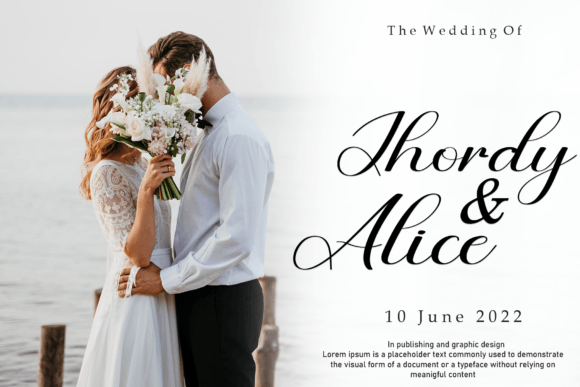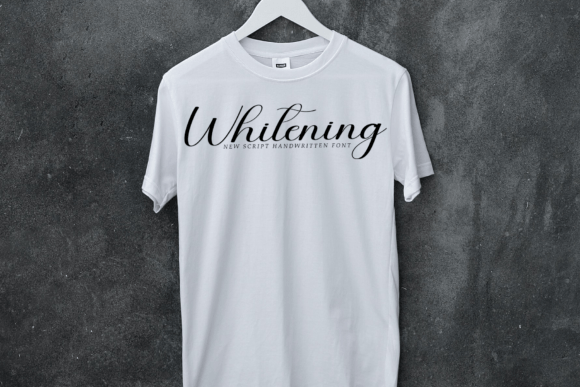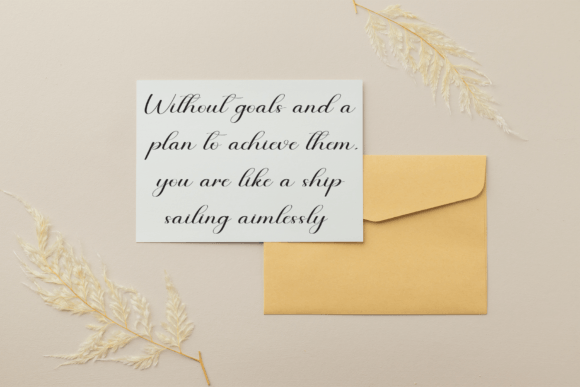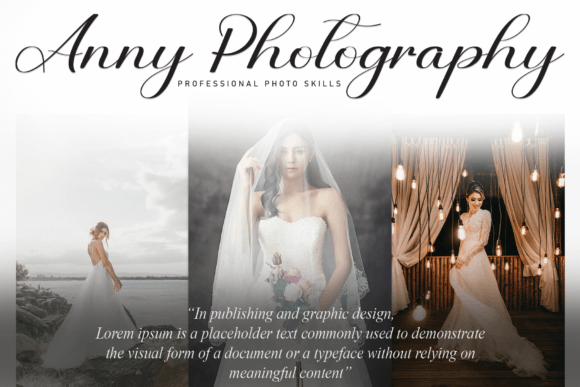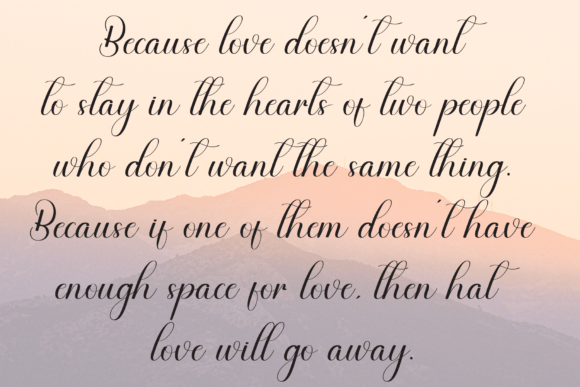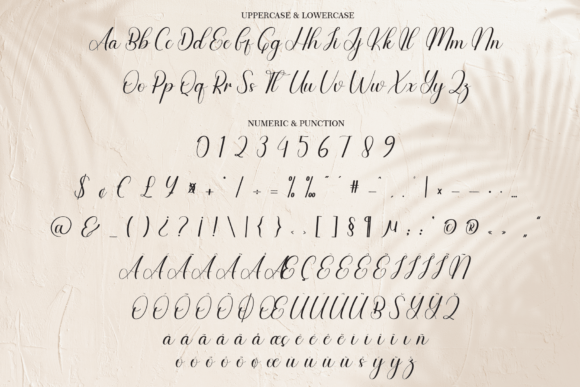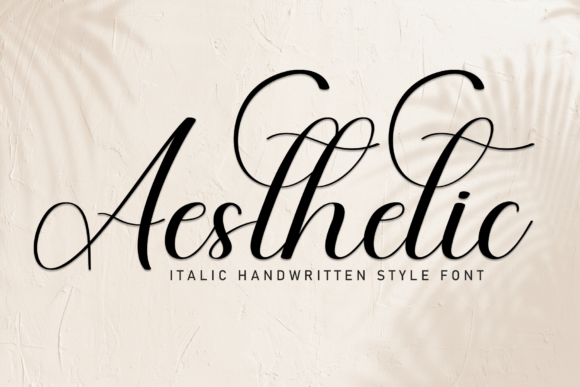
The Sweet Charm of Aesthetic Font: A Designer’s Delight
I’ll never forget the time I was working on a wedding invitation project, and my client asked for a font that was “sweet, friendly, and elegant.” I scoured the internet, tried countless fonts, but nothing seemed to fit the bill. That was until I stumbled upon Aesthetic Font. ✨ It was love at first sight! Fresh, casual, and lovely, this handwritten font has become a staple in my design toolkit.
An Honest Review of Aesthetic Font
- ✨ Sweet and Friendly: Aesthetic Font has a warm, inviting feel that’s perfect for wedding invitations, cards, and other designs that require a personal touch.
- ✅ Highly Legible: Despite its handwritten nature, Aesthetic Font is surprisingly easy to read, even in smaller sizes.
- 💕 Versatile: This font works beautifully for both digital and print projects, from social media graphics to party invitations.
While Aesthetic Font is an excellent choice for many projects, it’s not without its quirks. 🤔 For example:
- ⚠️ Limited Character Set: Aesthetic Font doesn’t have an extensive character set, so it may not be the best choice for projects that require a wide range of special characters or languages.
- ⚠️ Not Suitable for Body Text: While Aesthetic Font is lovely to look at, it’s not designed for long-form reading. It’s best used for headings, titles, or short paragraphs.
- Experiment with OpenType features, such as Stylistic Alternates, to add visual interest to your text.
The Designer Inspiration Behind Aesthetic Font
Aesthetic Font was designed with the intention of creating a beautiful, handwritten font that captures the warmth and elegance of a personal letter. The designer wanted to create a font that would make digital communication feel more personal and special.
Q: What type of projects is Aesthetic Font best suited for?
A: Aesthetic Font is ideal for projects that require a personal touch, such as wedding invitations, cards, and social media graphics.
Q: Is Aesthetic Font available in different weights or styles?
A: Currently, Aesthetic Font is available in a single weight, but the designer may release additional weights or styles in the future.